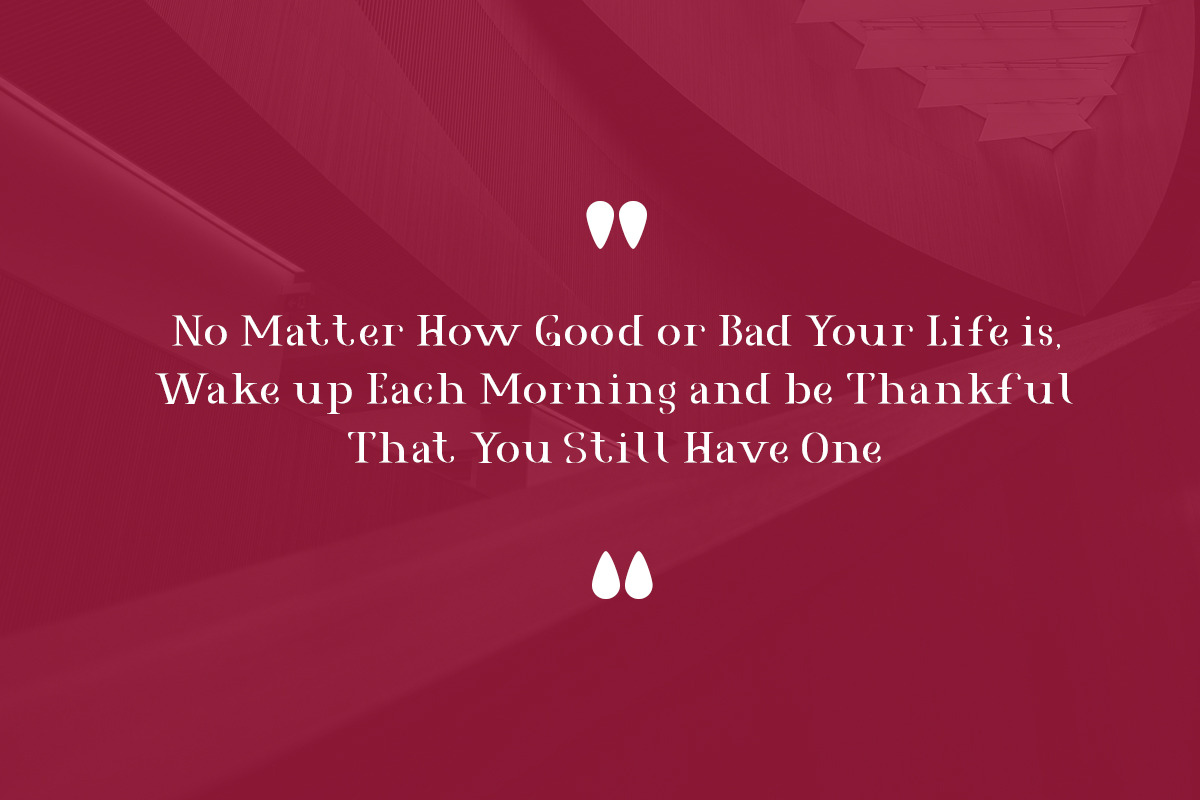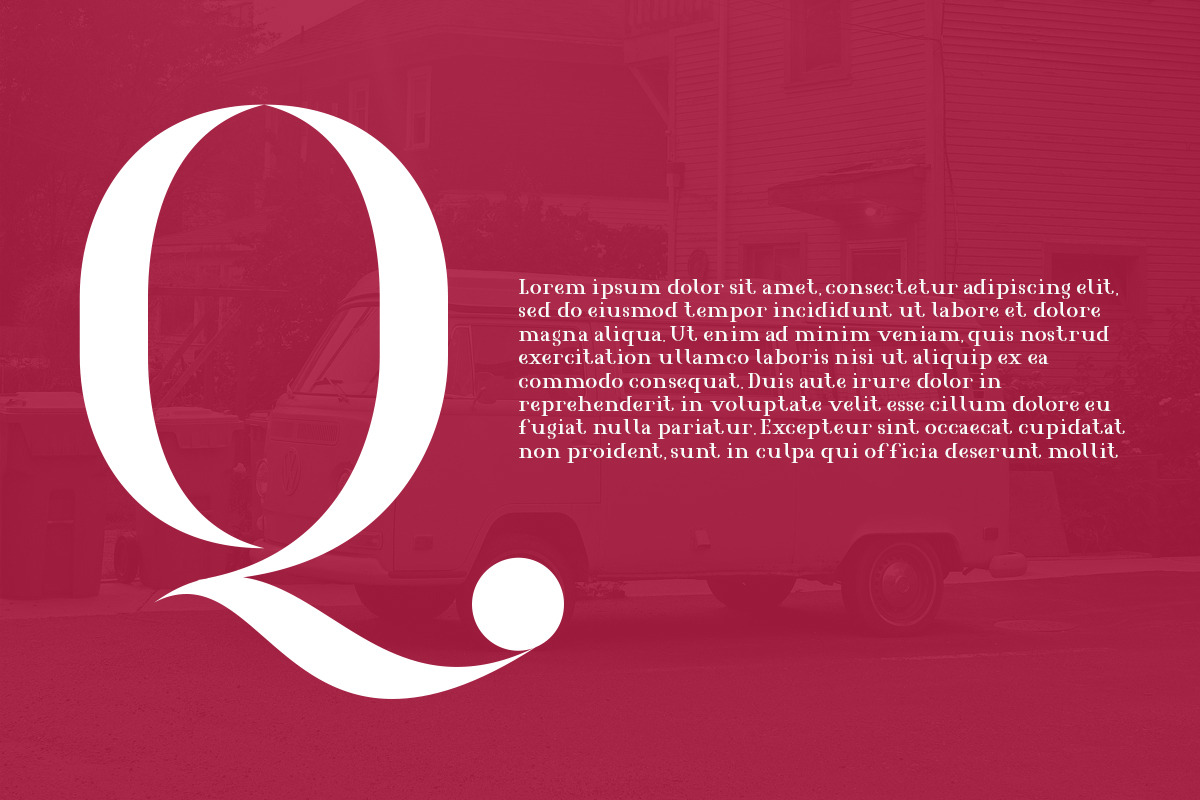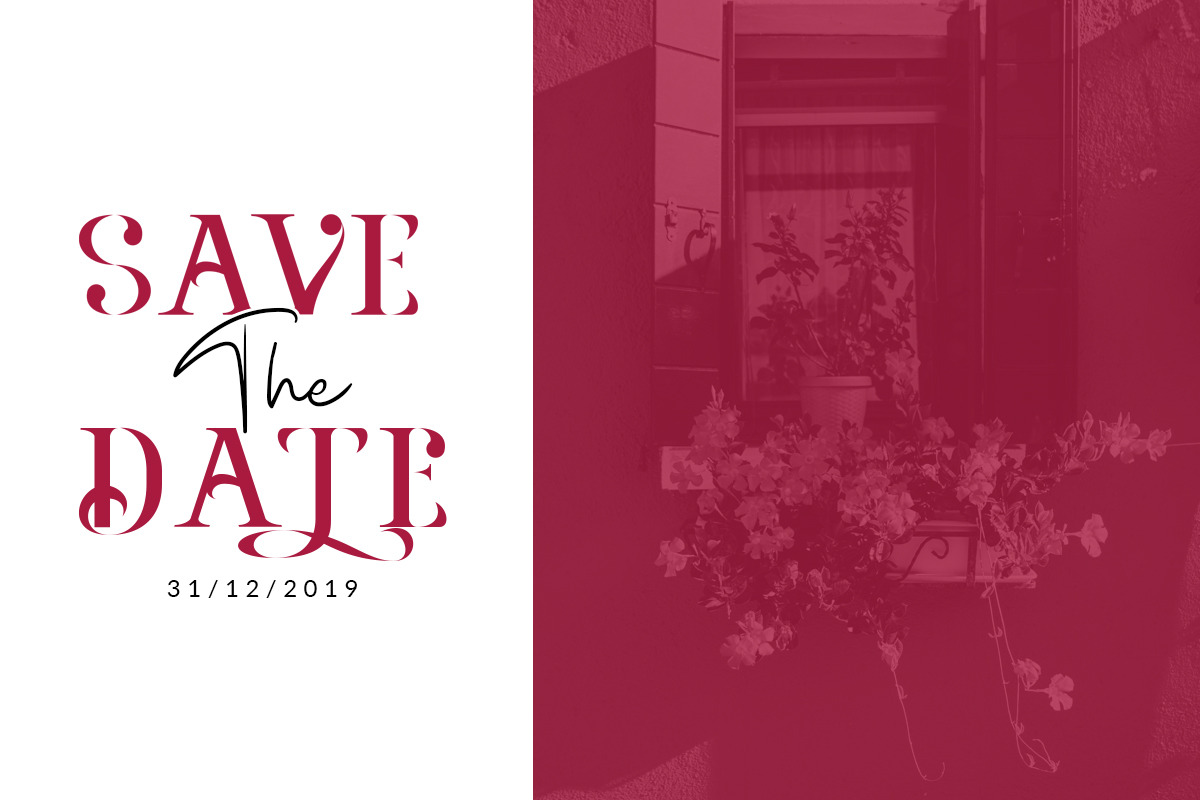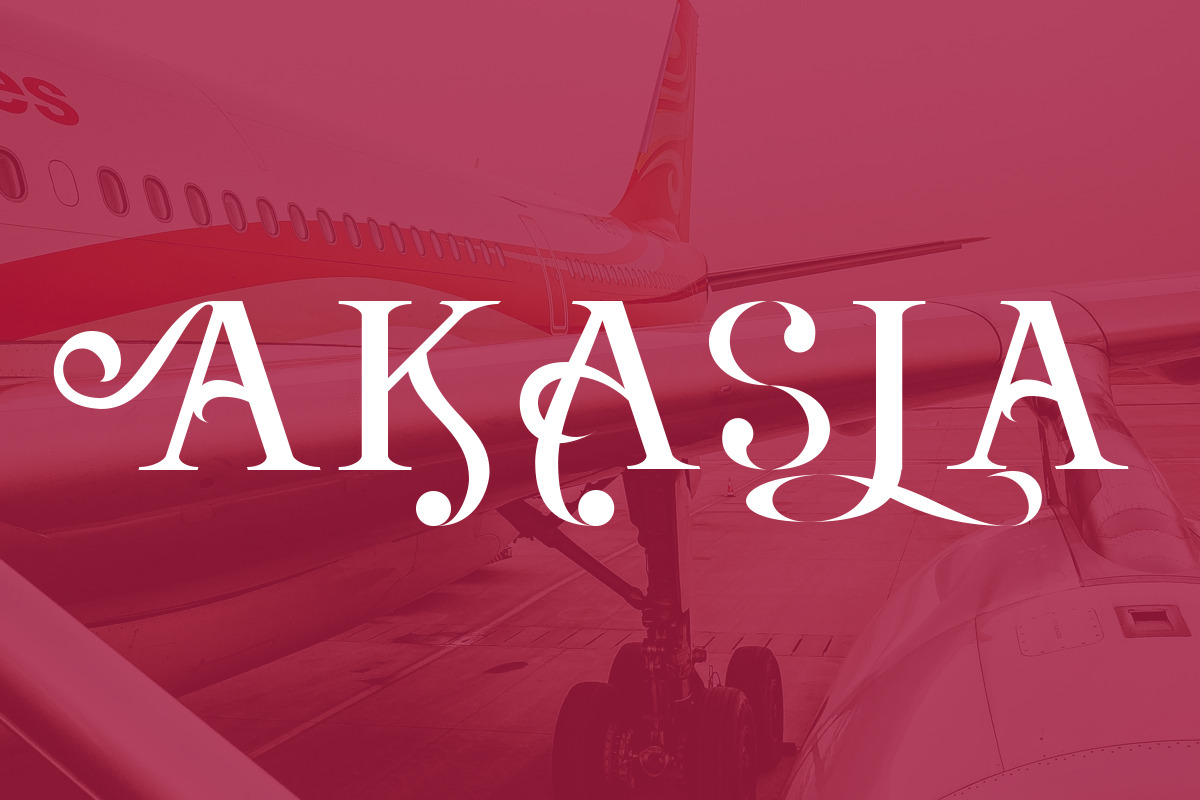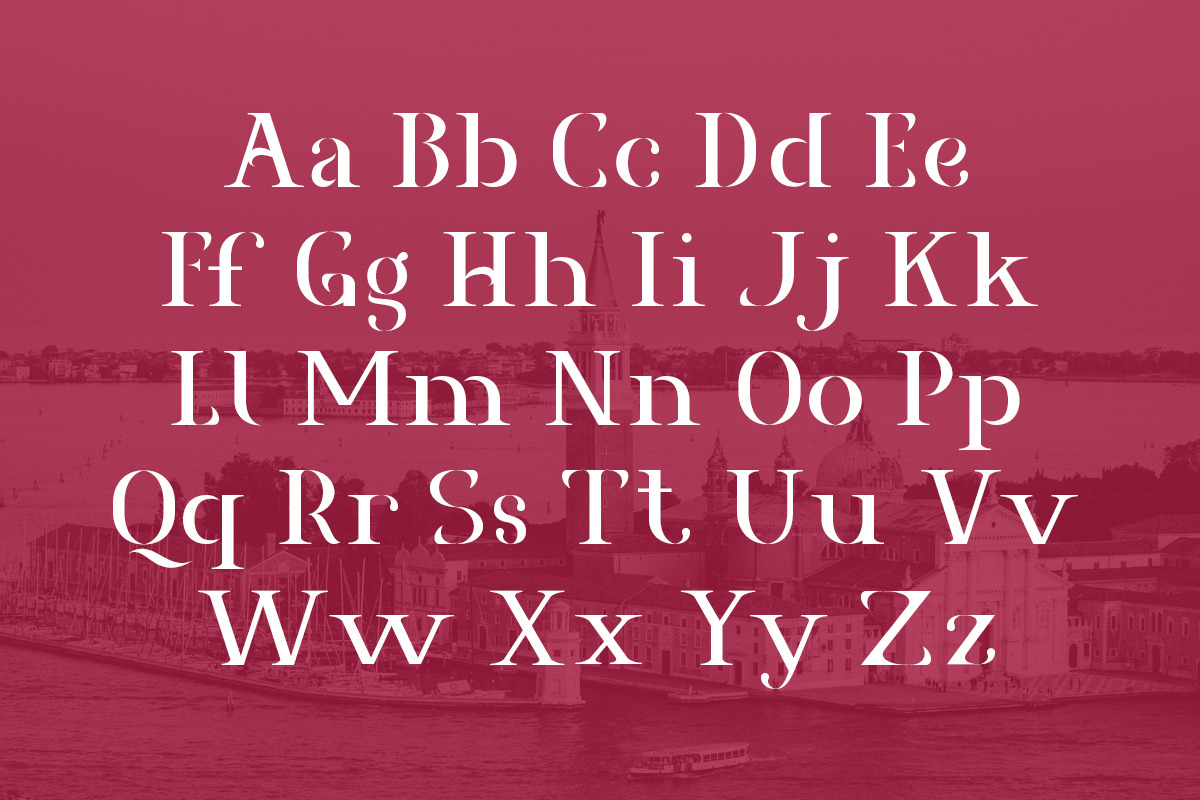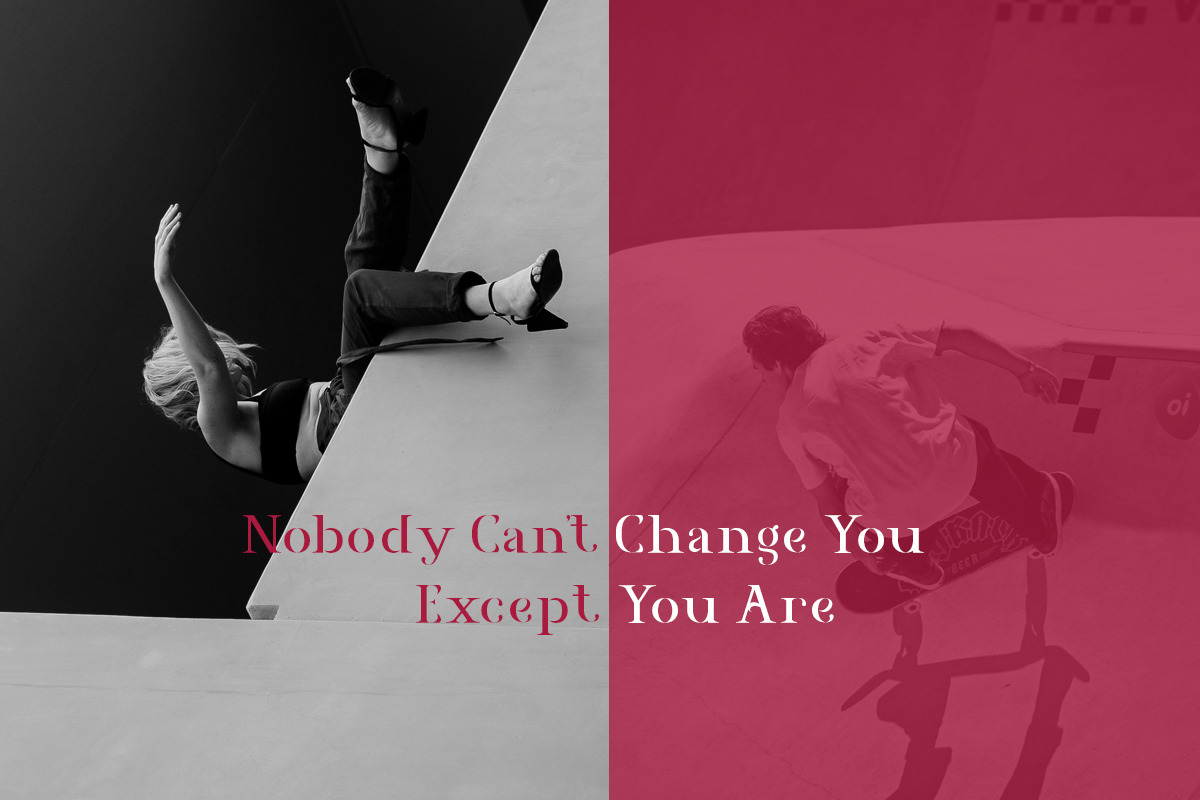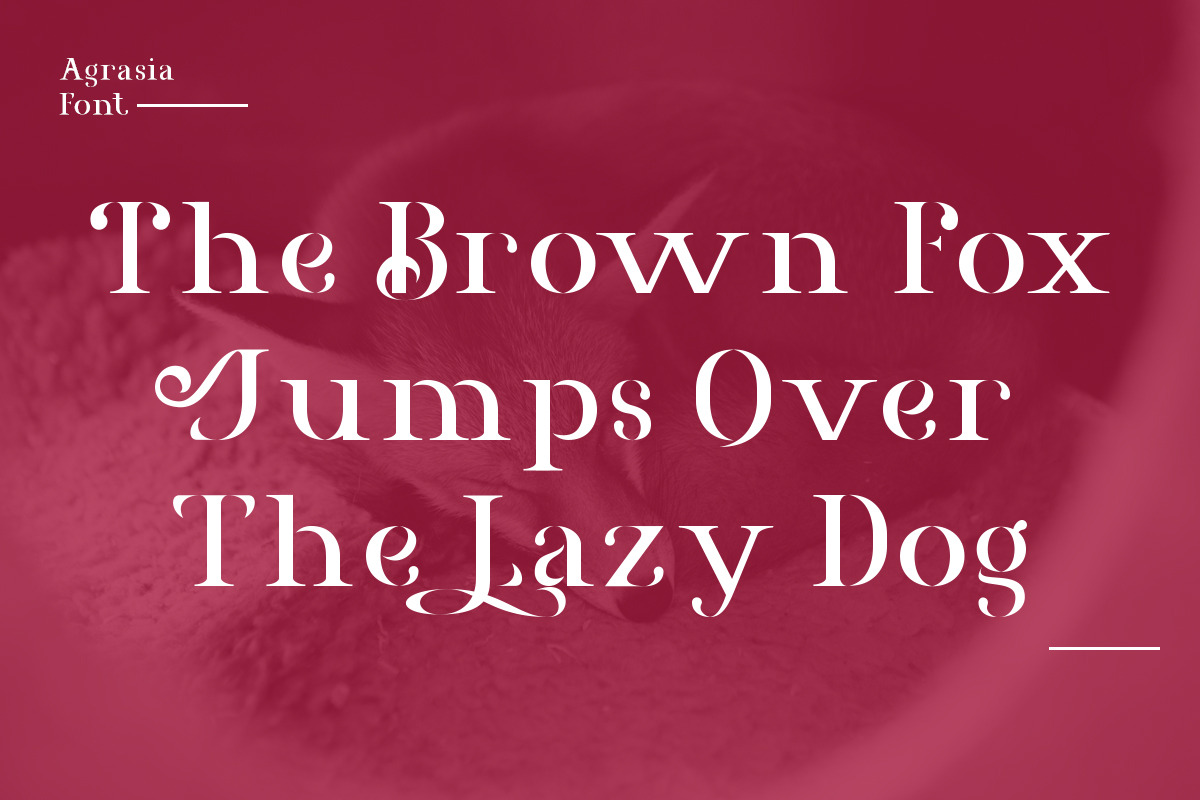
Agrasia | Serif Font
Introducing the new Agrasia Font is a Modern Serif type. it has a modern with classic spirit touch. Agrasia Font offer an out of the box typexperience for any design project like book, t-shirt, poster, card,e etc.
Agrasia has an additional 3 Uppercase Alternate glyphs. you can change it as you wish for more exploration of typing.
Agrasia | Serif Font by Youthlabs Studio fits naturally into Branding, posters, packaging, typography.